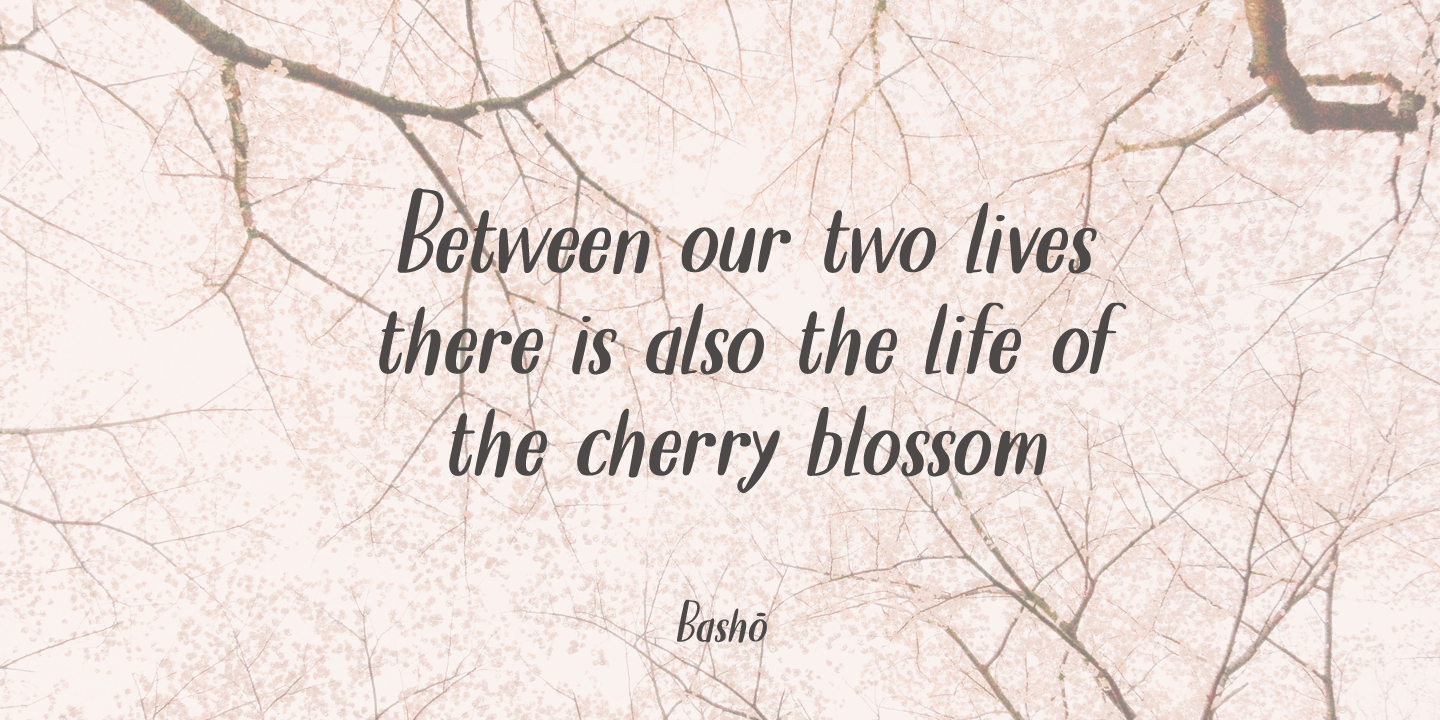
Perfect Day Font is perfect for wedding invitations, romantic greeting cards, lifestyle blog headers, boutique branding, spa and wellness materials, fashion magazine layouts, coffee shop signage, inspirational quotes, luxury packaging, and elegant social media posts.
Perfect Day Font is exciting because it captures the essence of life's most beautiful moments through its graceful letterforms and sophisticated elegance, creating an emotional connection that transforms ordinary text into memorable experiences filled with warmth and charm.
Perfect Day Font family includes Regular, Bold, Light, Script, Condensed, Wide, Italic, and Decorative variations, providing designers with versatile options to create cohesive and stunning visual narratives for any sophisticated project.
Perfect Day Font represents the pinnacle of refined typography, offering designers a versatile tool that seamlessly blends contemporary aesthetics with timeless appeal. This elegant typeface brings a sense of serenity and sophistication to any design project, whether you're crafting intimate wedding materials, luxury brand communications, or premium lifestyle content. The balanced proportions of Perfect Day Font Free Download ensure exceptional readability while maintaining the decorative qualities that make special occasions feel truly memorable.
High-end hospitality businesses frequently select Perfect Day Font for their branding materials, from boutique hotel signage to fine dining restaurant menus. The font's refined appearance communicates quality and attention to detail, helping establishments create an atmosphere of exclusivity and memorable experiences that encourage customer loyalty and positive word-of-mouth recommendations.
Perfect Day Font shines in digital applications where emotional connection is paramount. Lifestyle bloggers and influencers use this font to create cohesive brand identities that resonate with their audiences, while e-commerce brands leverage its appealing aesthetics for product descriptions and marketing materials that inspire purchasing decisions.
The wellness and self-care industry has embraced Perfect Day Font for its ability to convey tranquility and personal transformation. Beauty brands, mindfulness apps, and personal development coaches choose this font because it visually represents the aspirational lifestyle their customers desire, making it an essential element in creating compelling brand narratives that inspire and motivate audiences.